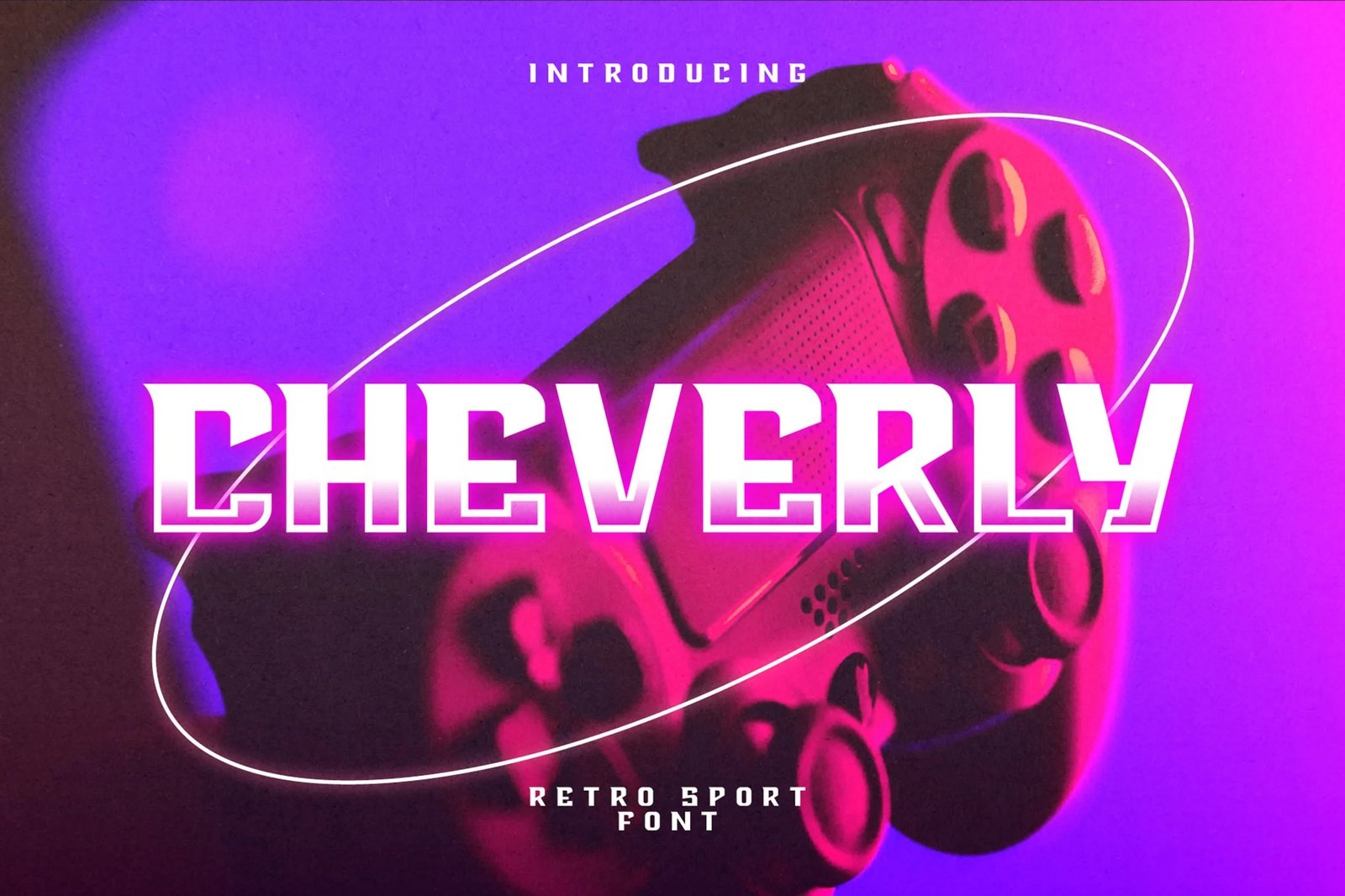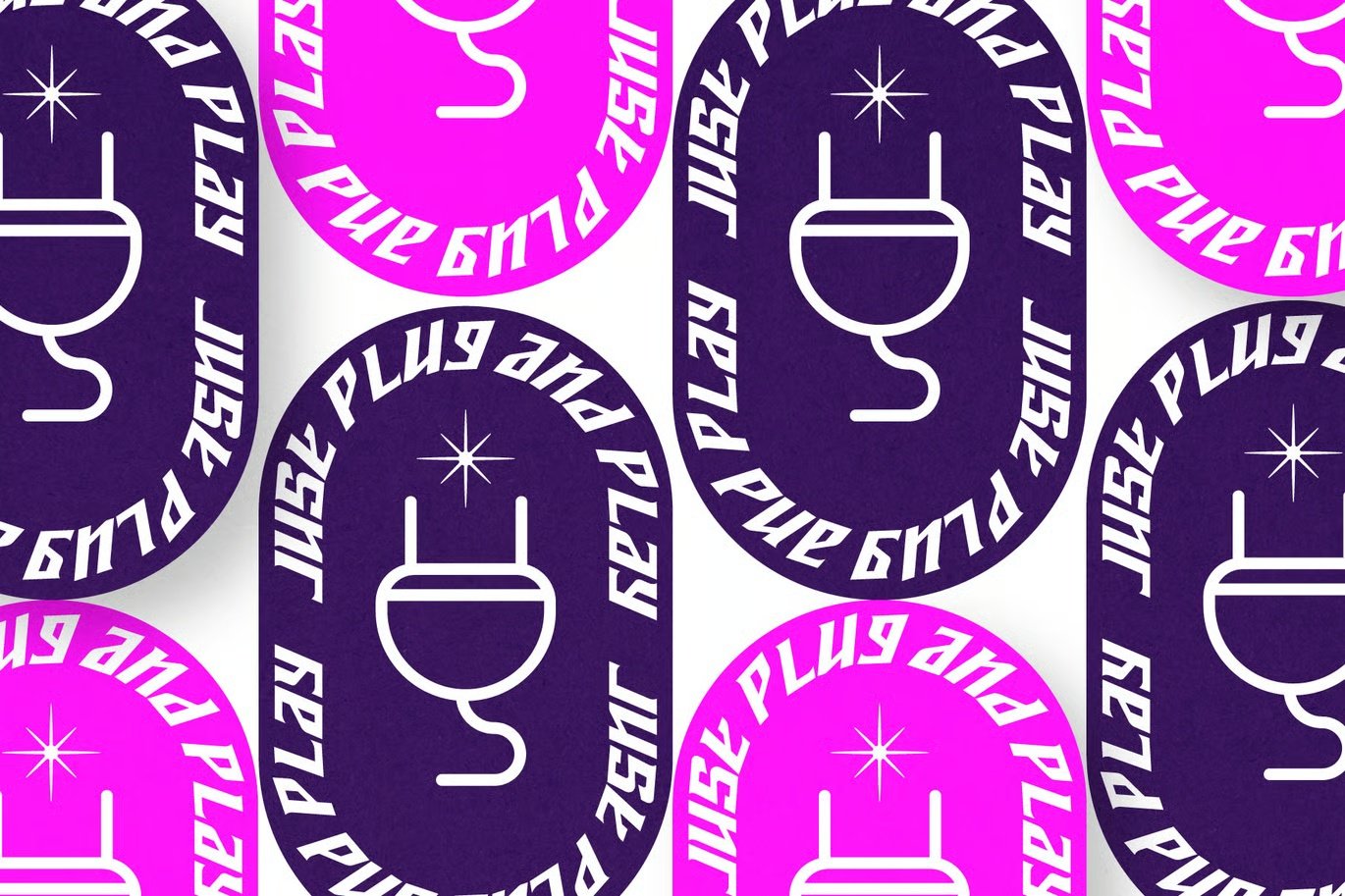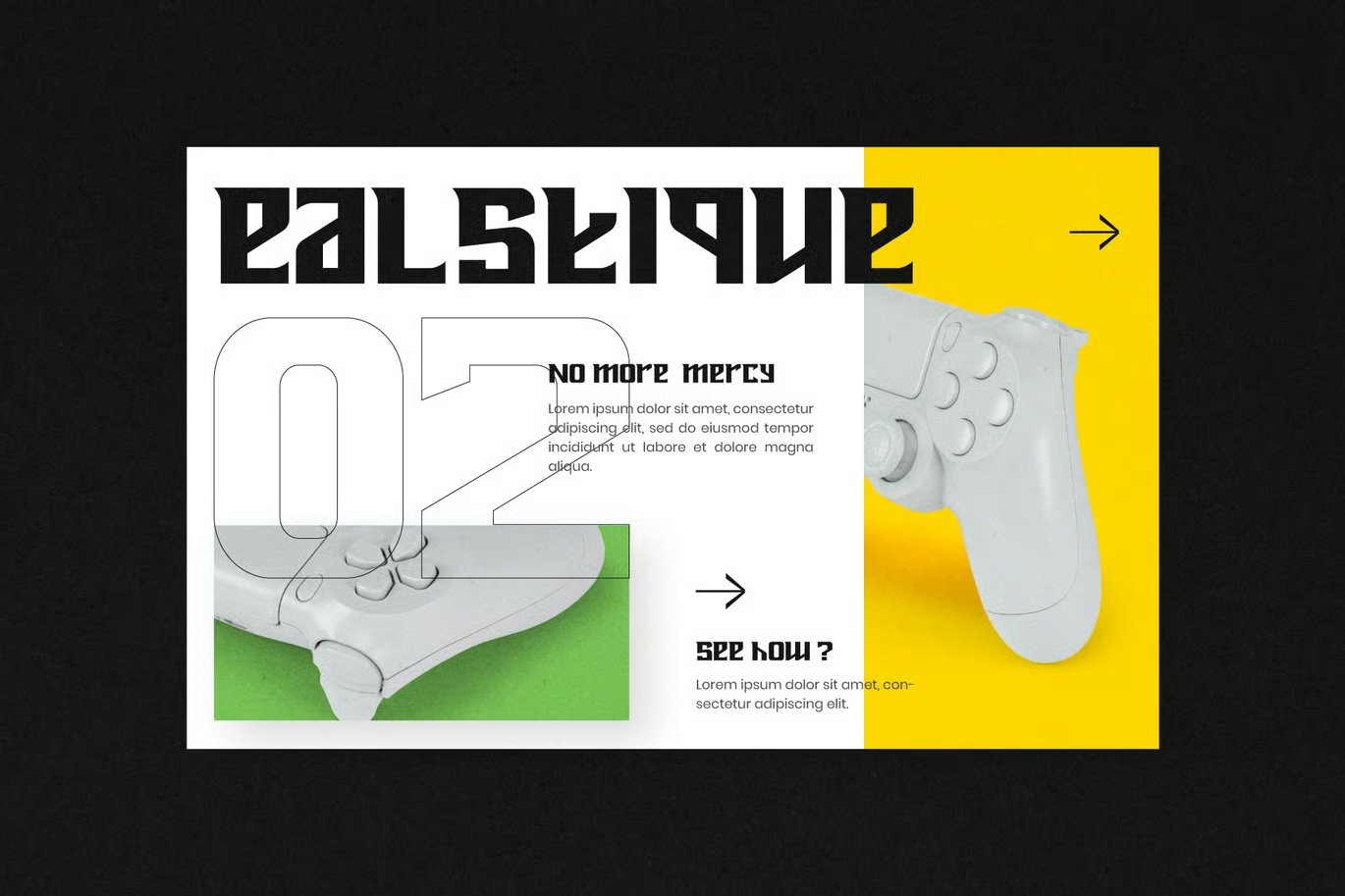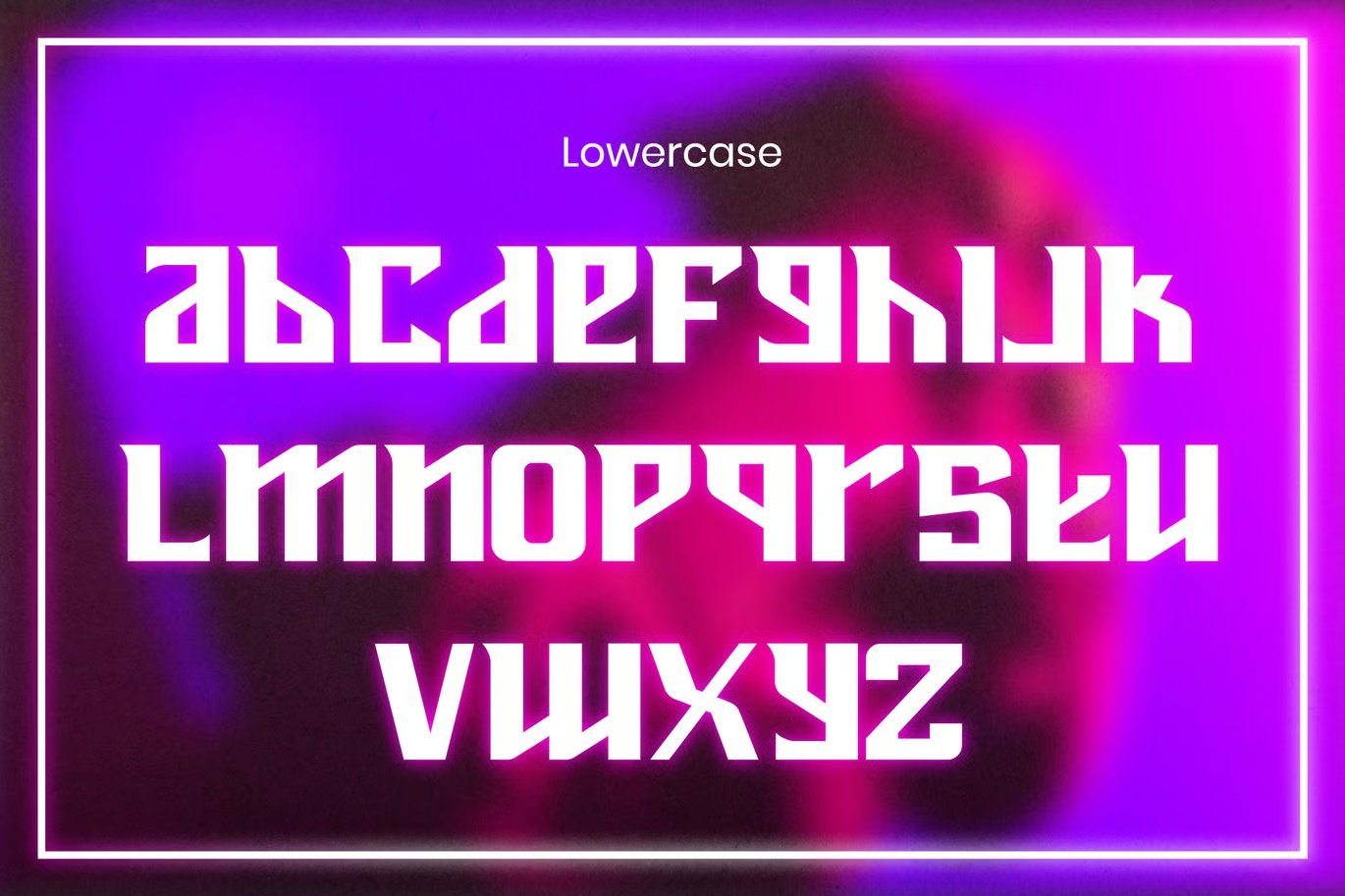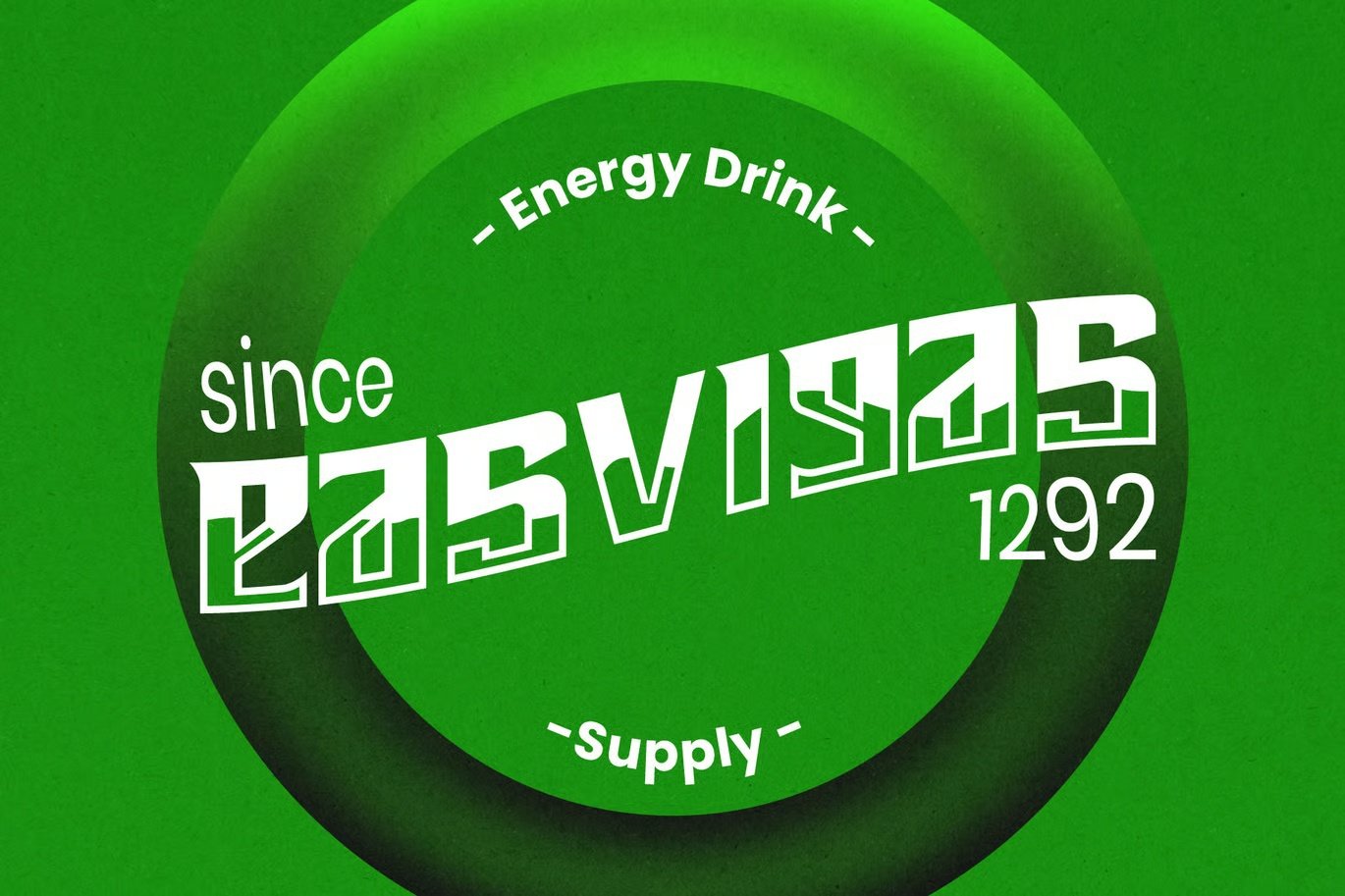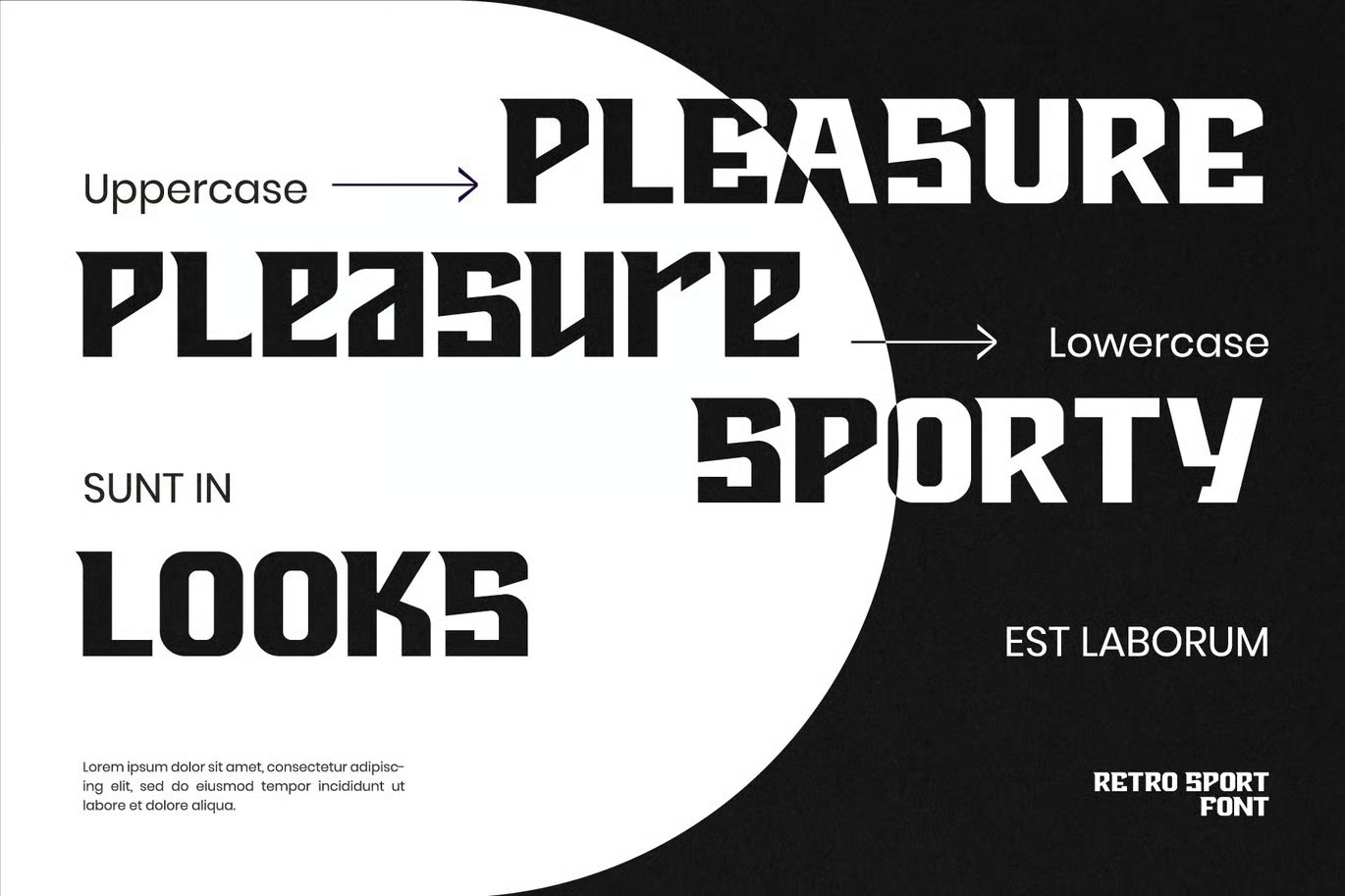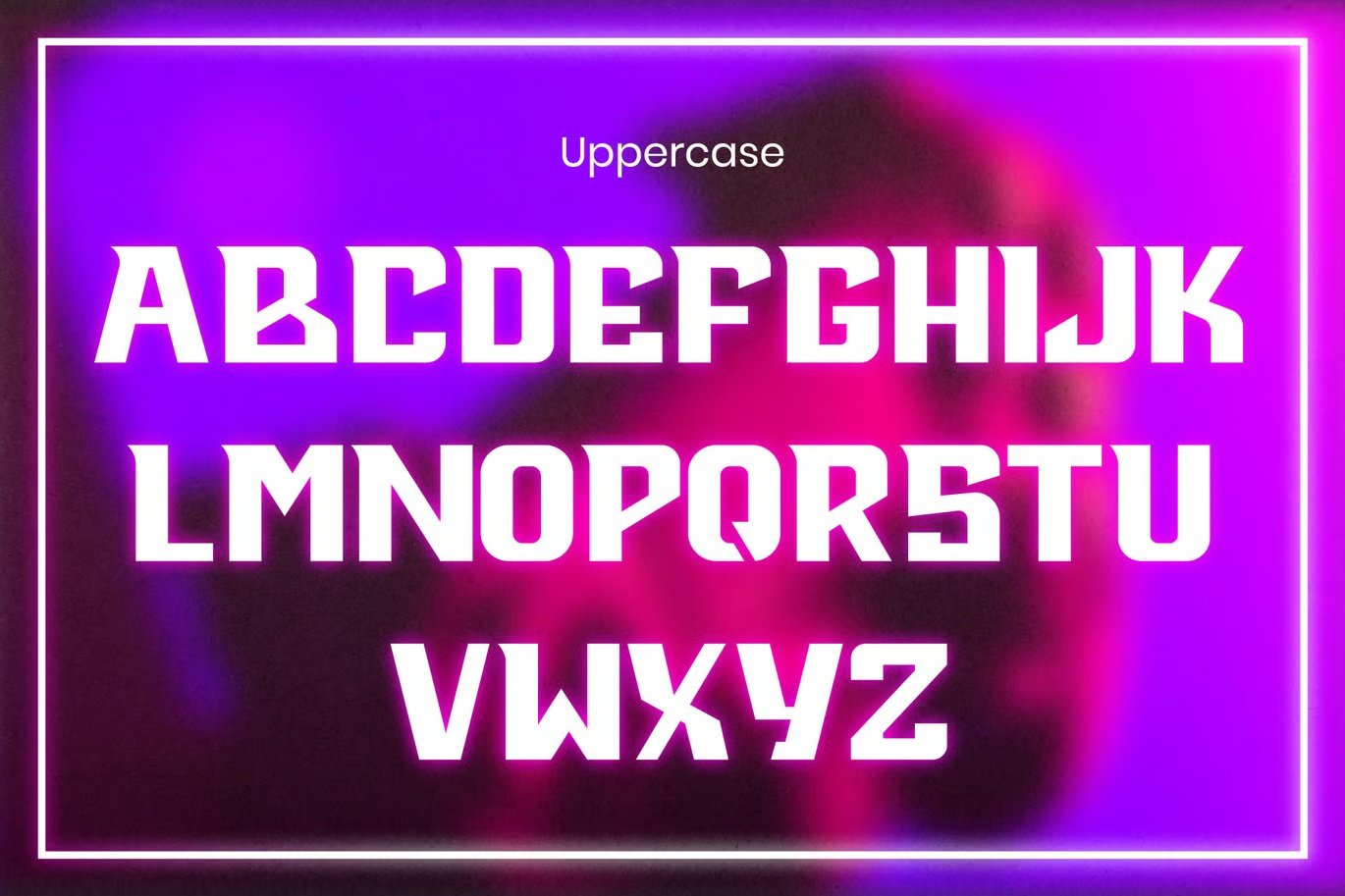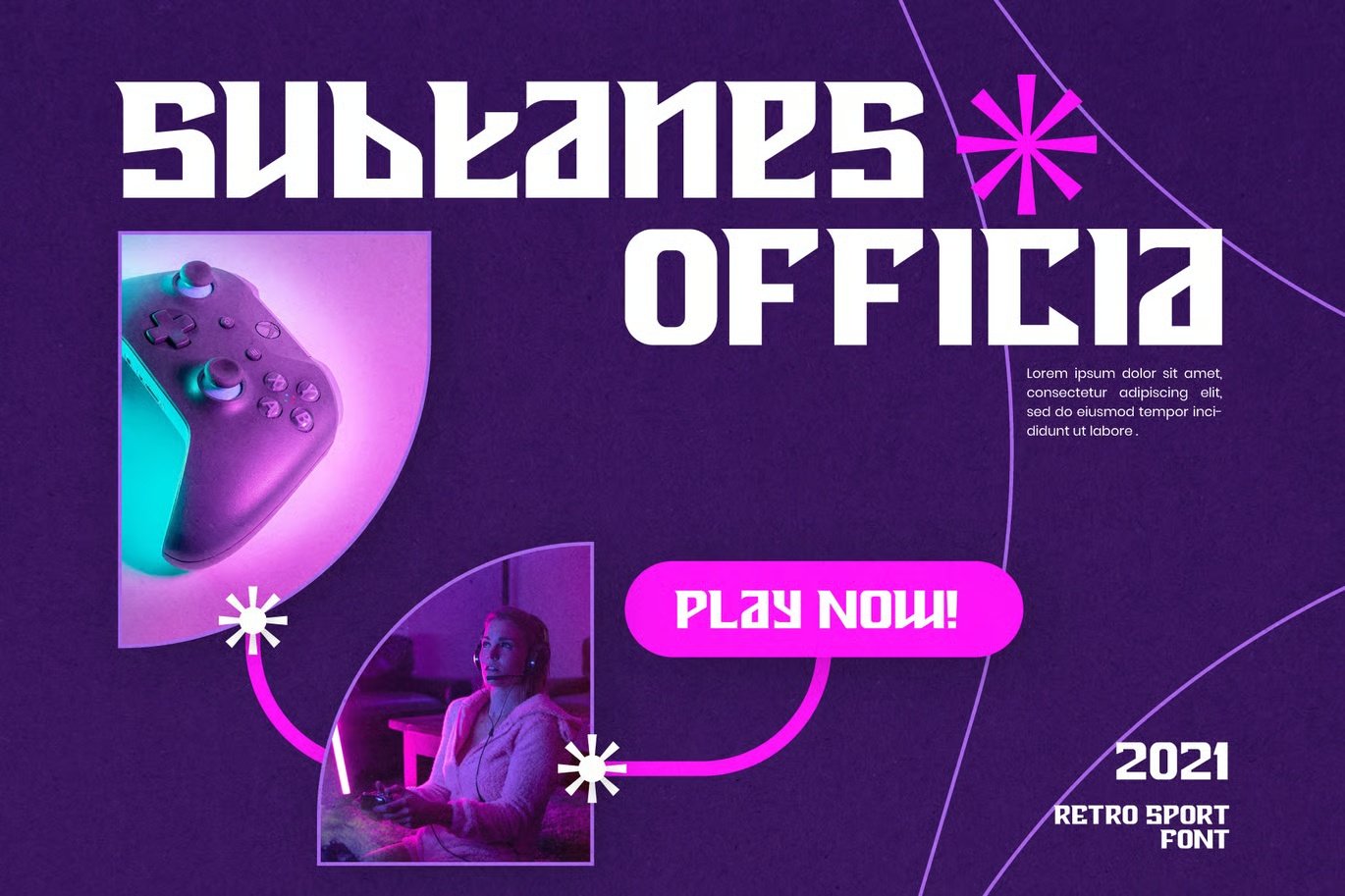
Cheverly – Sport Retro Font
Introducing Cheverly Retro Sport Font This all caps font is suitable for posters, esport logo, magazines, apparels, movie headlines, packaging and more.